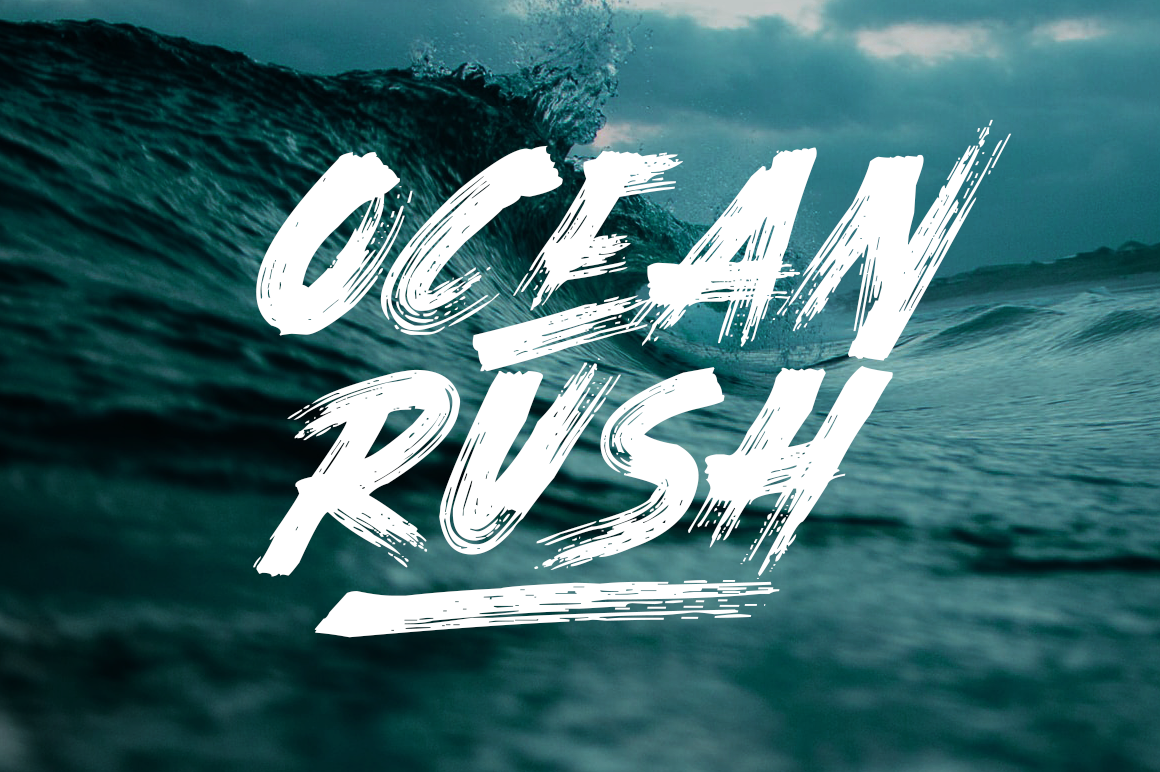
Ocean Rush - Font
Ocean Rush provides the aesthetic of paint brush typography with the fading brush strokes effect. A strong and independent font! Easy to use but gives loud and clear output. The plus is it works great both on light and dark backgrounds. Now assemble your own words and design it with Ocean Rush font.
Variations: Regular + Slant
Features: Capitals, Numerals, Punctuation
Uses: Shirt Prints, Posters, Video Thumbnail, Logo, Album Cover, Photography Text, Headers